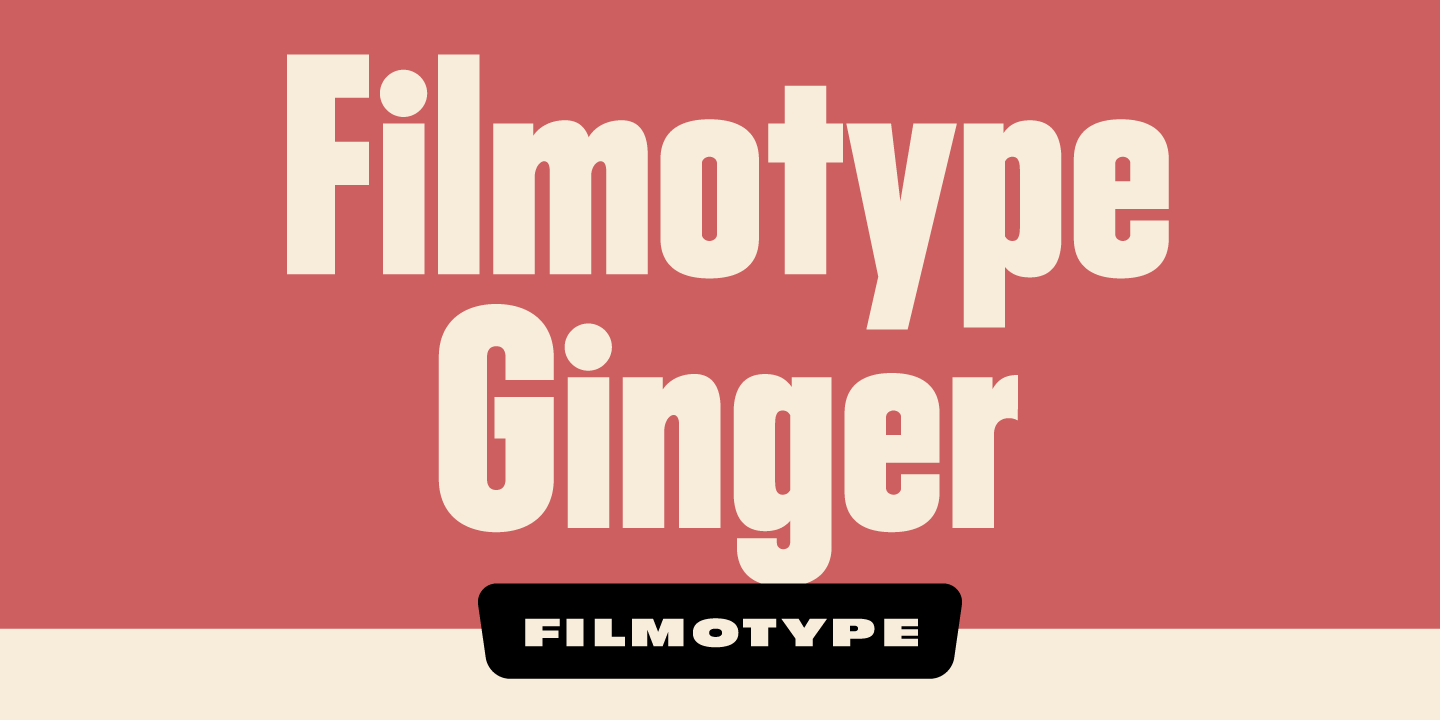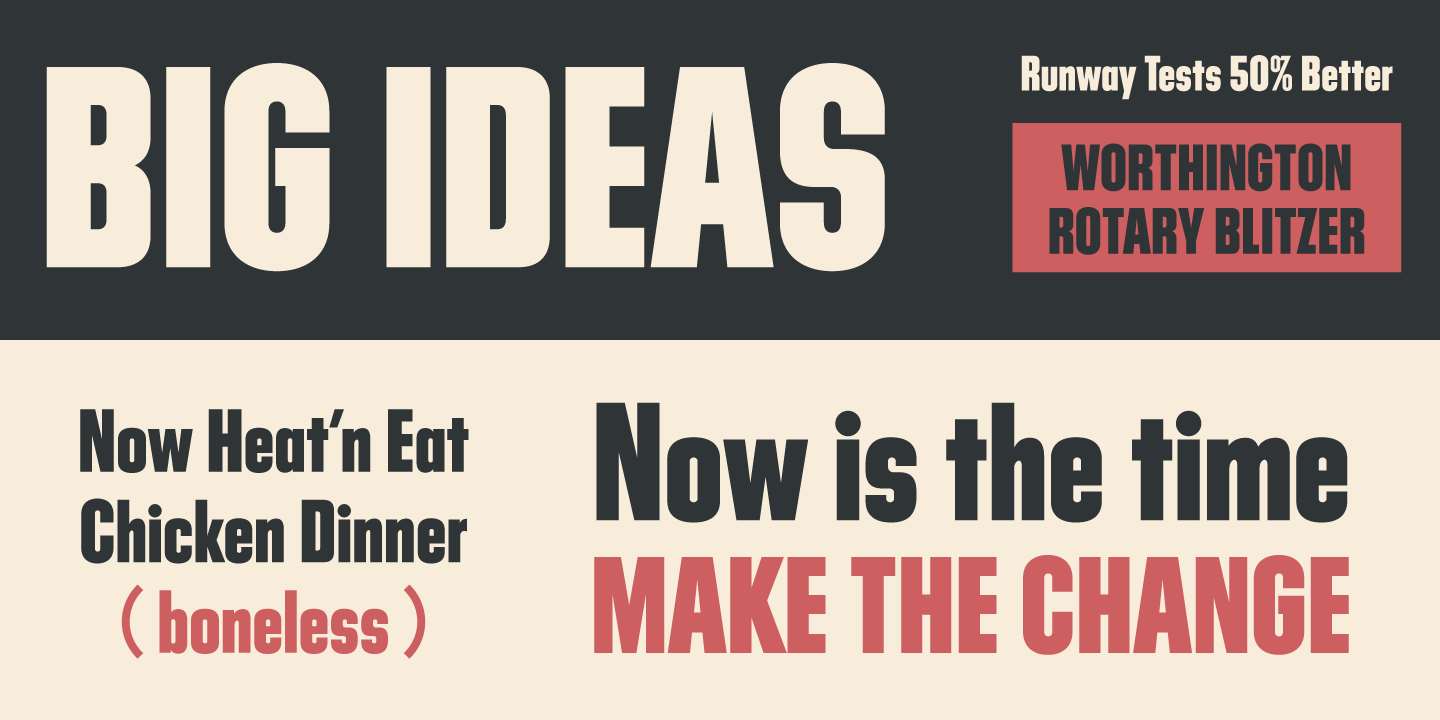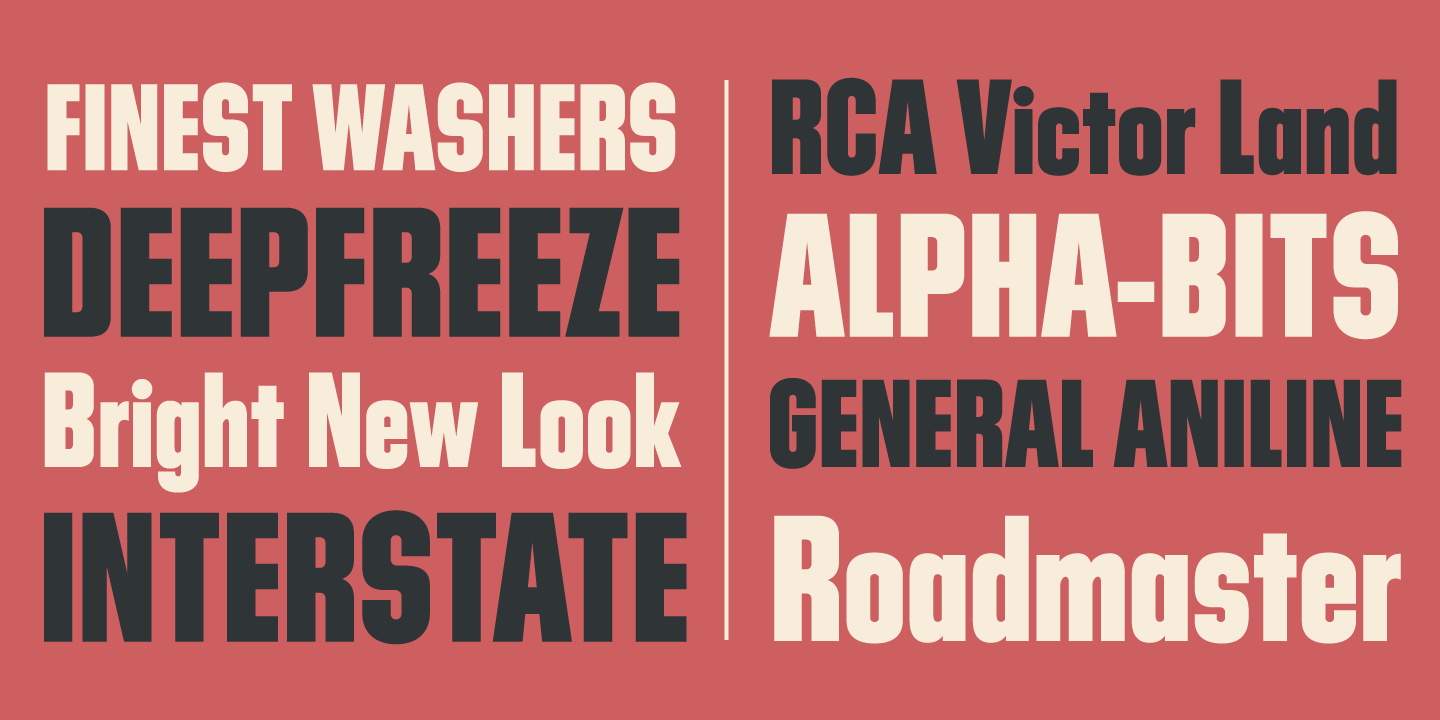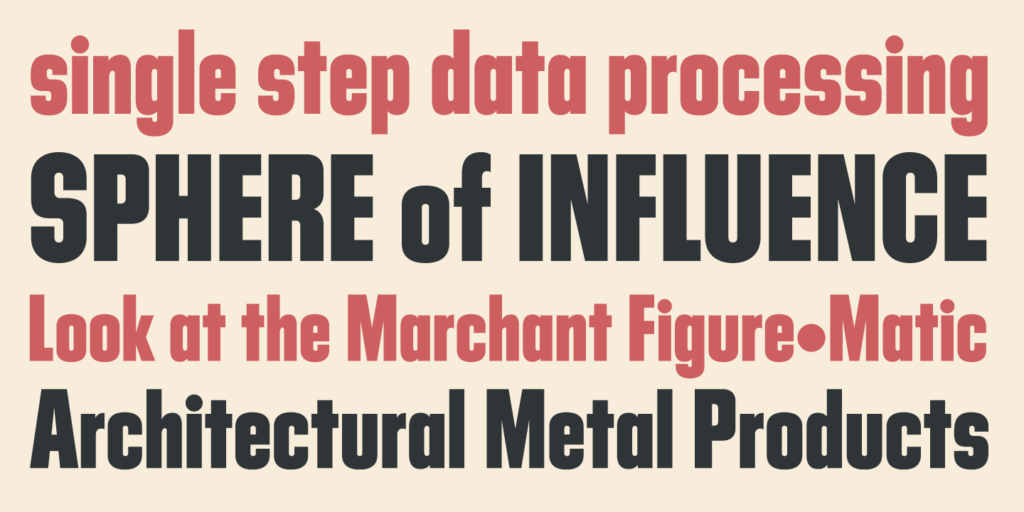
Filmotype Ginger
About Filmotype Ginger
Initially designed in the early-to-mid 1950s, Filmotype Giant is part of a larger group of condensed sans serifs offered by Filmotype at the demand of its customers based on their versatility, legibility, and timeless aesthetic. Initially offered in…